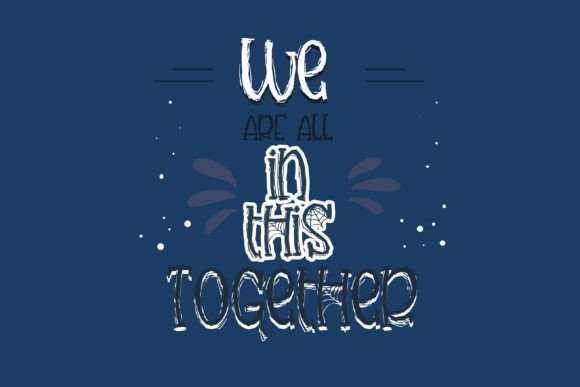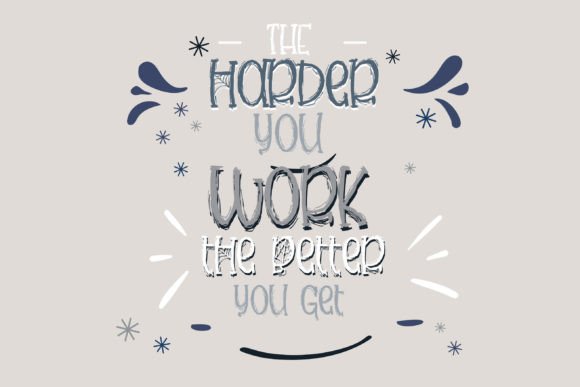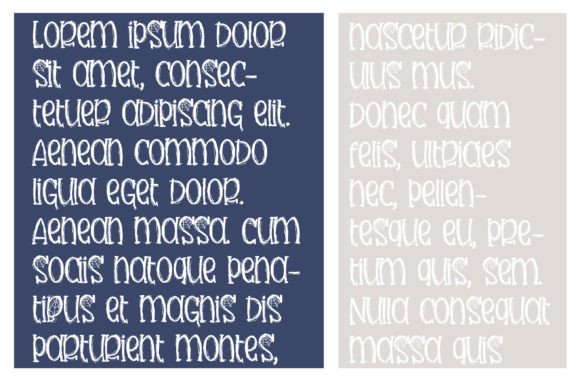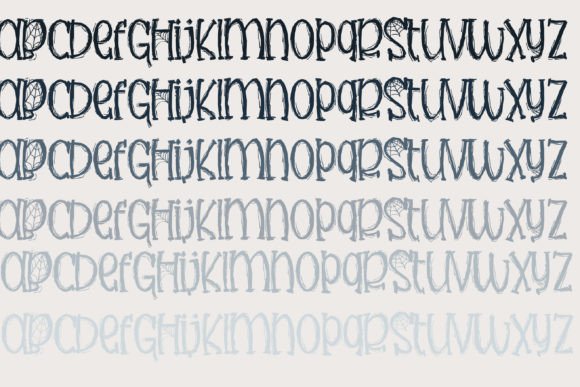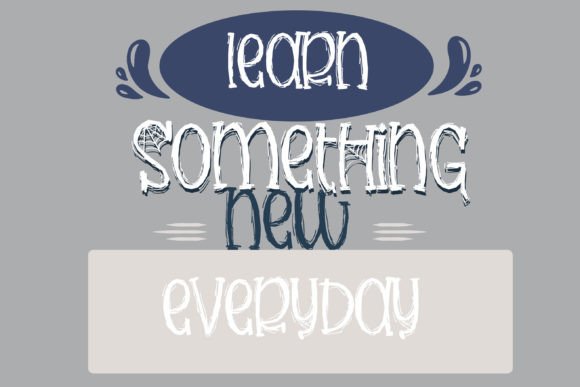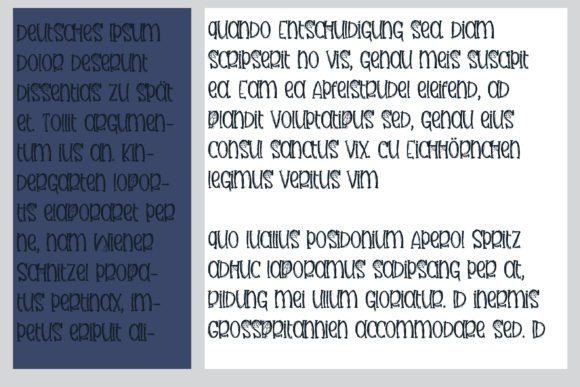
Unleashing the Magic of Halloween Typography
As a designer, there’s nothing quite like the thrill of brainstorming creative ideas for a holiday project. You’re rummaging through your font library, searching for that perfect typeface to capture the essence of the season. And then, it hits you – the perfect font to make your Halloween project stand out from the crowd.
Meet Blueboo Too Font, a delightfully playful typeface designed to bring spooktacular fun to your Halloween projects. With its whimsical and eerie letterforms, this font is perfect for party invitations, posters, and spooky decorations. Whether you’re designing for a haunted house or a Halloween party, Blueboo Too Font is sure to add a touch of magic to your projects.
For designers, having the right font can make all the difference in creating a cohesive and engaging visual identity. With Blueboo Too Font, you’ll have the perfect tool to create memorable and attention-grabbing Halloween designs that will leave a lasting impression on your audience.
Key Features of Blueboo Too Font
- Unique Characteristics: The Blueboo Too Font features a unique, handwritten style with subtle imperfections, giving it a personal and creative touch.
- Font Styles: Blueboo Too Font includes 5 different font styles, including Regular, Italic, Bold, Bold Italic, and Outline, allowing for a range of design options.
Blueboo Too Font Review
As a designer, I’ve had the chance to work with a wide variety of fonts, and Blueboo Too is definitely one of the more interesting ones I’ve come across. Here are my thoughts.
- The font’s unique blend of vintage and modern elements makes it stand out in a crowded market. It’s a great choice for designers looking to add some visual interest to their projects.
- The font is highly customizable, with a wide range of weight options and stylistic sets that allow you to tweak the look to suit your needs.
- Blueboo Too is a highly legible font, making it a great choice for body text as well as headlines.
- One of the main limitations of Blueboo Too is its lack of support for certain languages. If you need to typeset text in languages that require complex character sets, you may find this font to be limiting.
- The font’s unique style may not be to everyone’s taste, and some designers may find it too flashy or overwhelming.
Overall, I think Blueboo Too is a solid choice for designers looking to add some visual interest to their projects. While it may not be perfect for every use case, its unique blend of vintage and modern elements makes it a great choice for the right project.
Tip: Use Blueboo Too Font to create a beautiful and elegant look for your designs.
Tip: Use Blueboo Too Font to create a unique and eye-catching design.
Tip: Use Blueboo Too Font to add a touch of elegance to your presentations and documents.
Blueboo Too Font is perfect for:
- Birthday invitations and party decorations.
- Any design that requires a touch of elegance and sophistication.
What is the recommended font size for optimal readability with the Blueboo Too Font?
The recommended font size for optimal readability with the Blueboo Too Font is between 12pt and 14pt. However, this may vary depending on the specific application, screen resolution, and personal preference. Experiment with different font sizes to find the most comfortable and readable setting for your project.